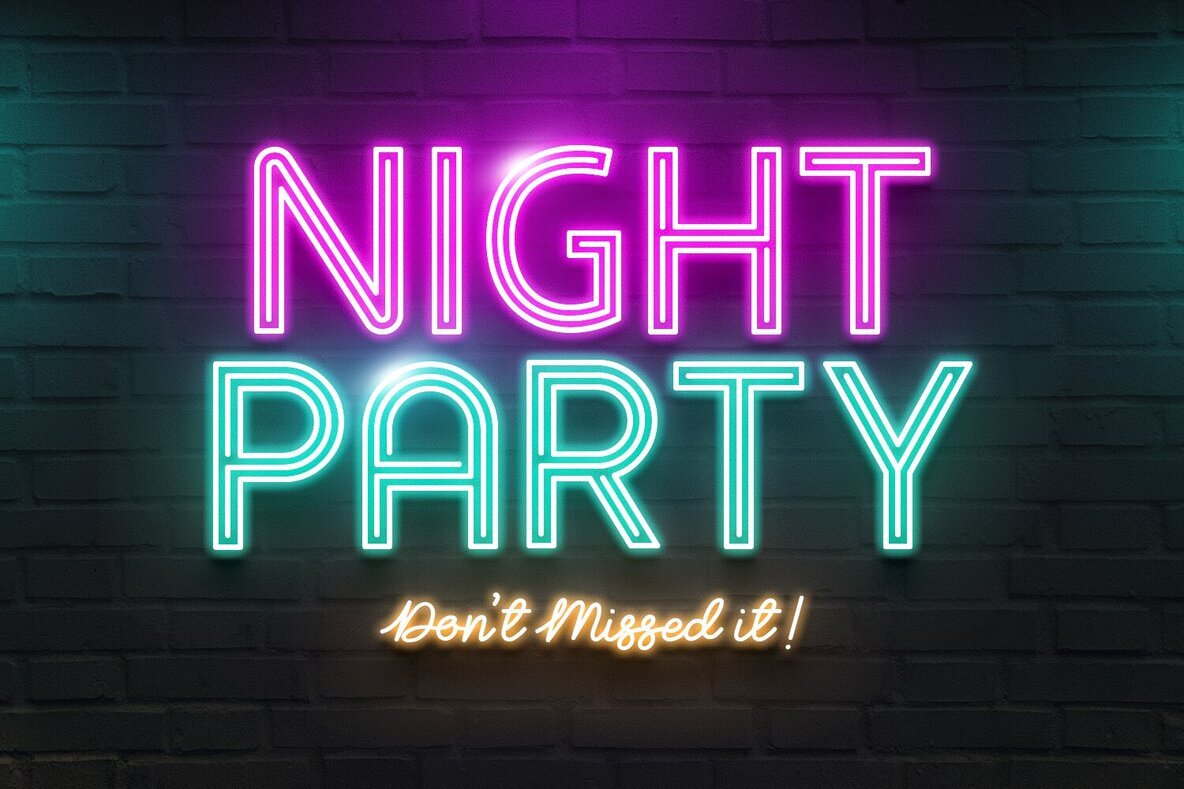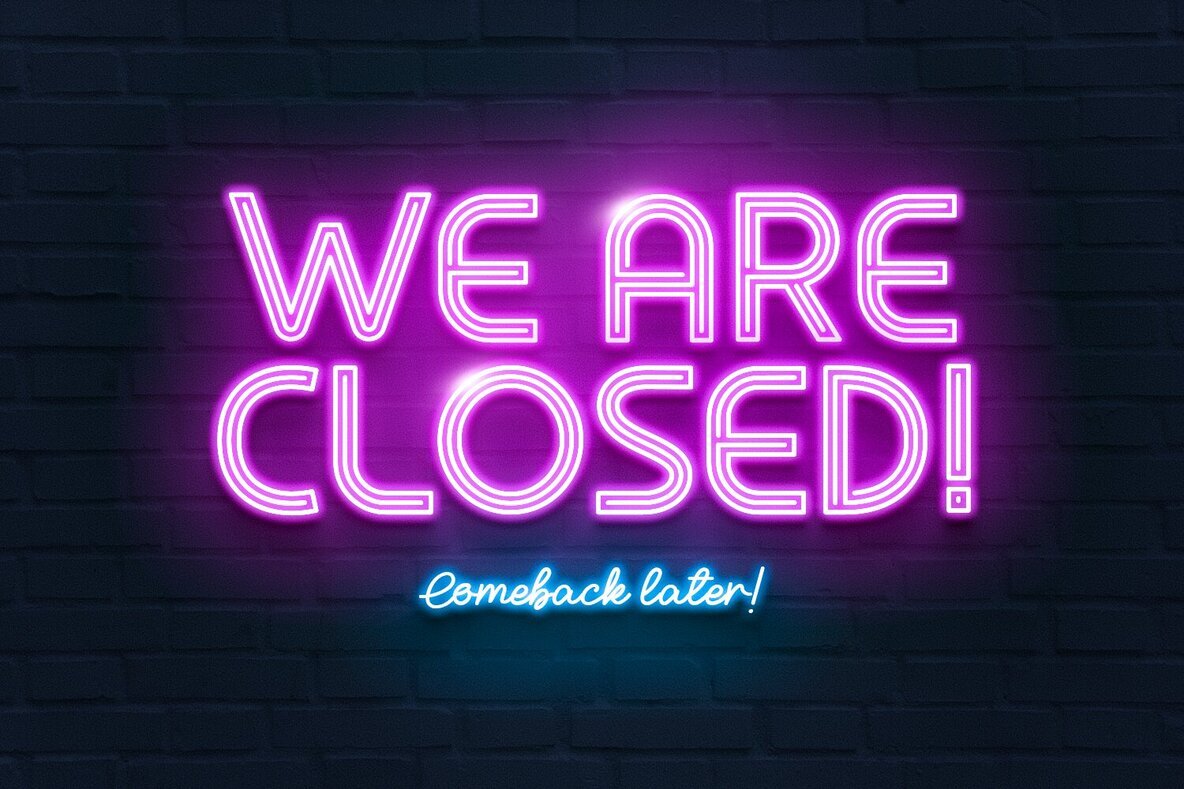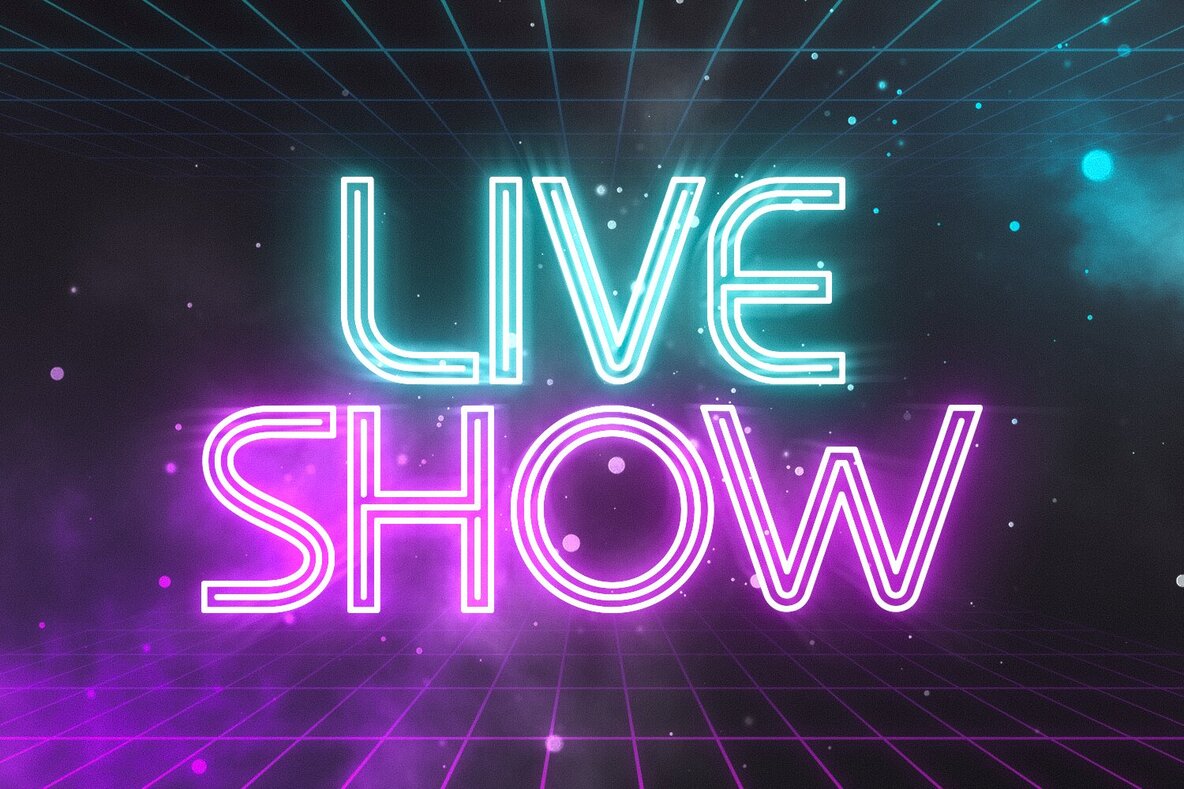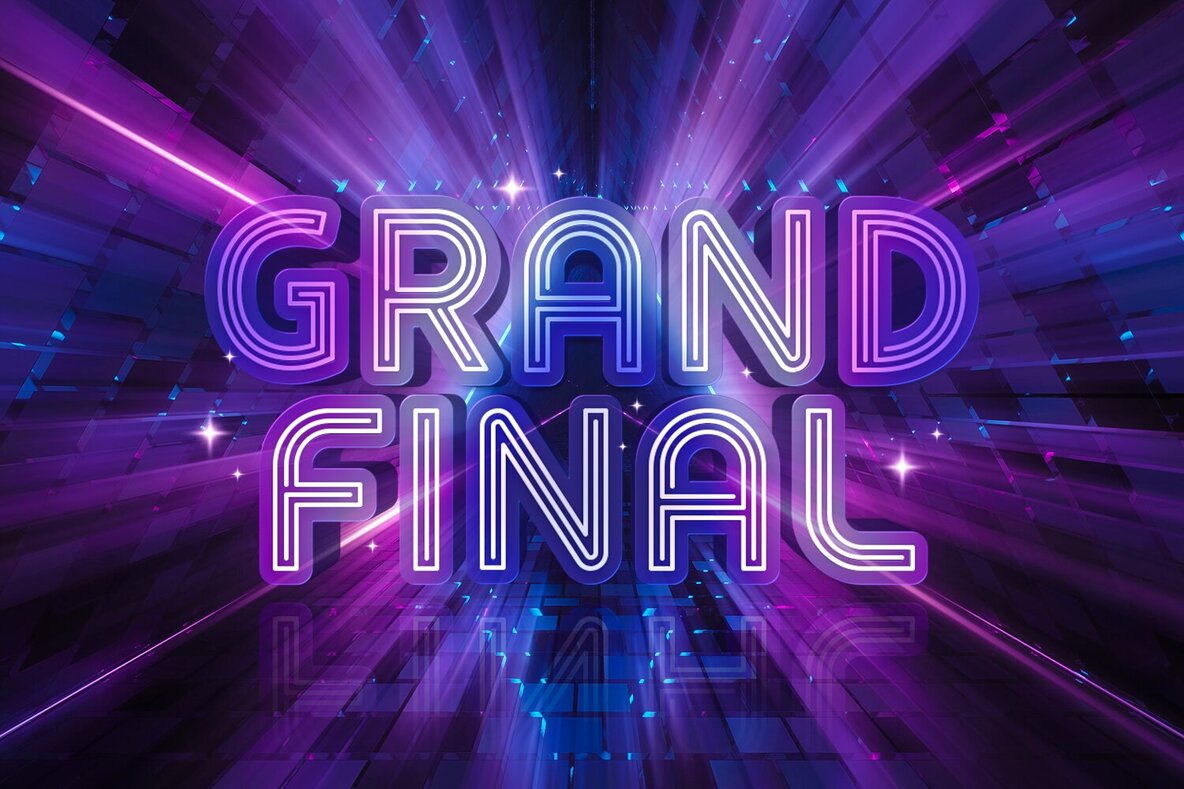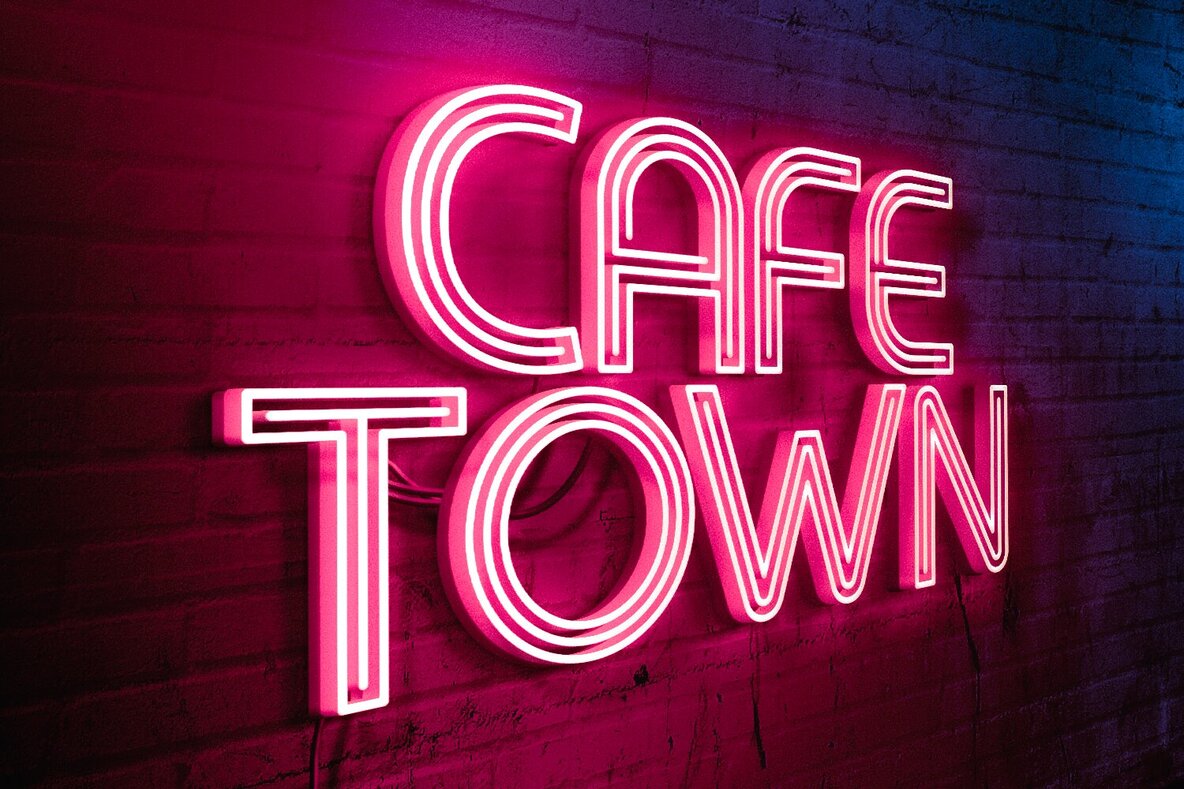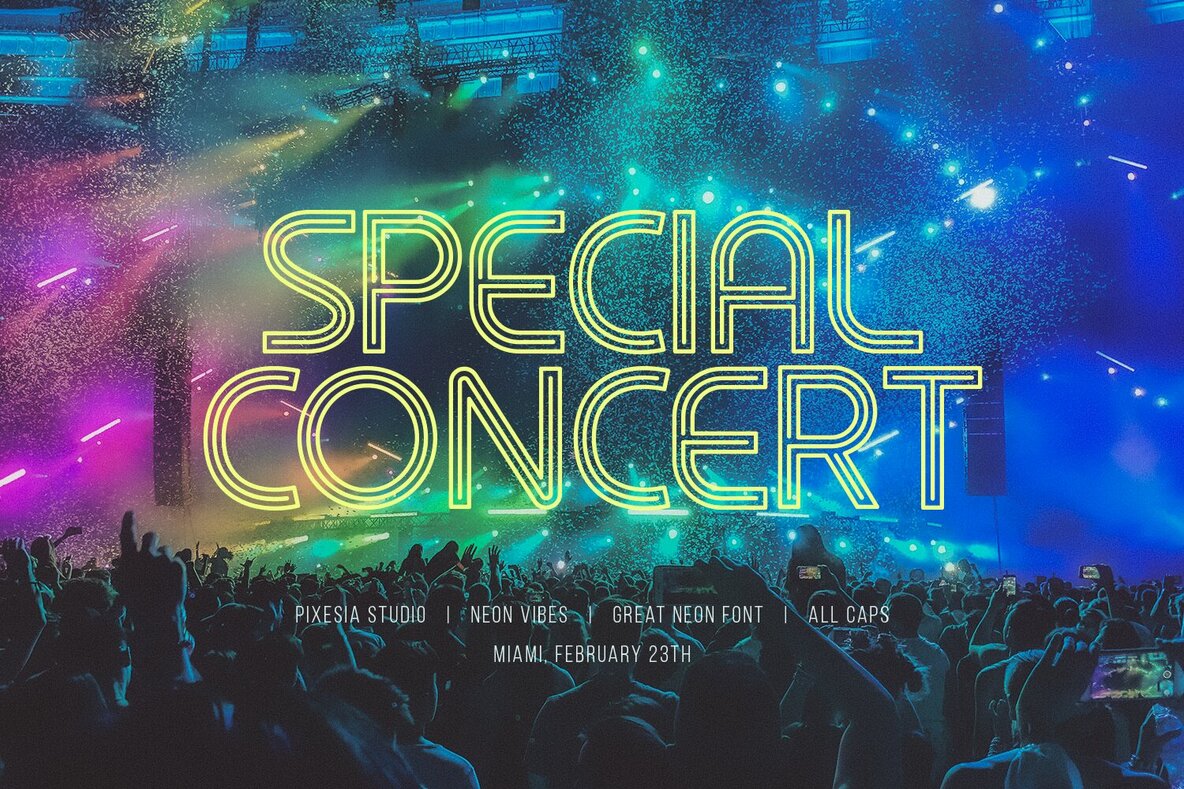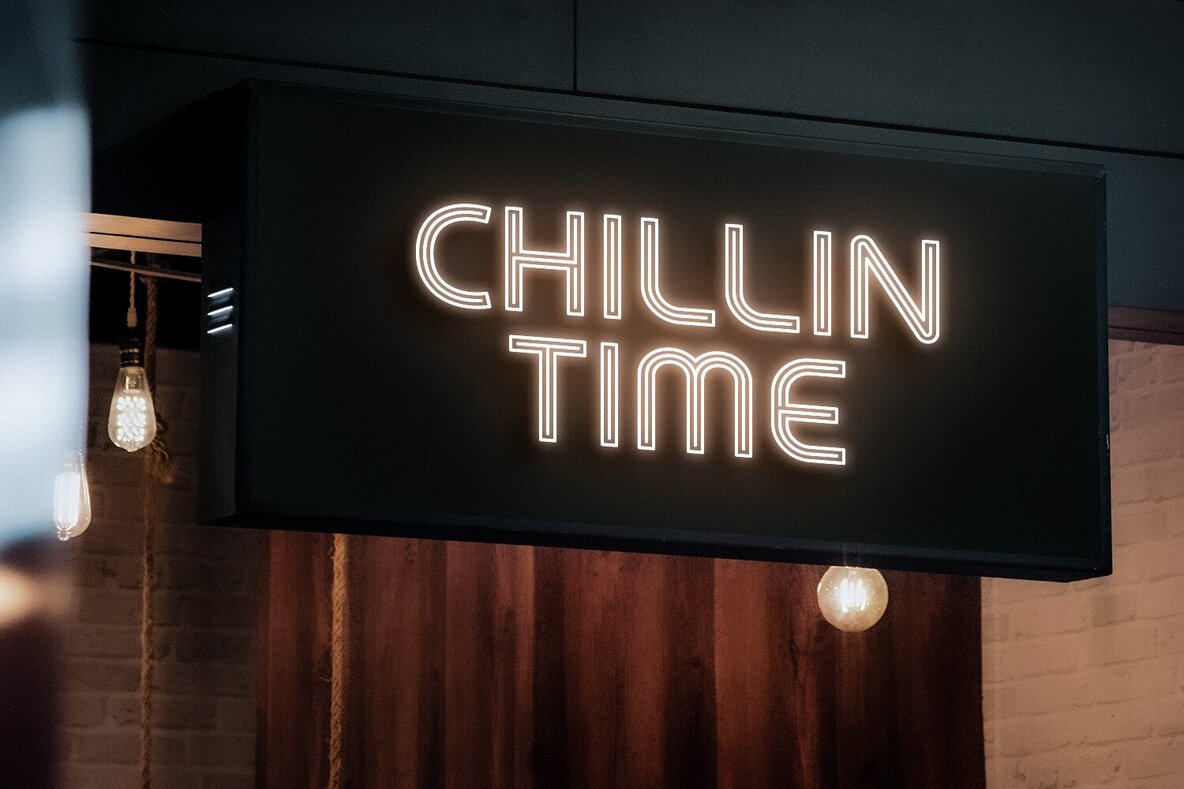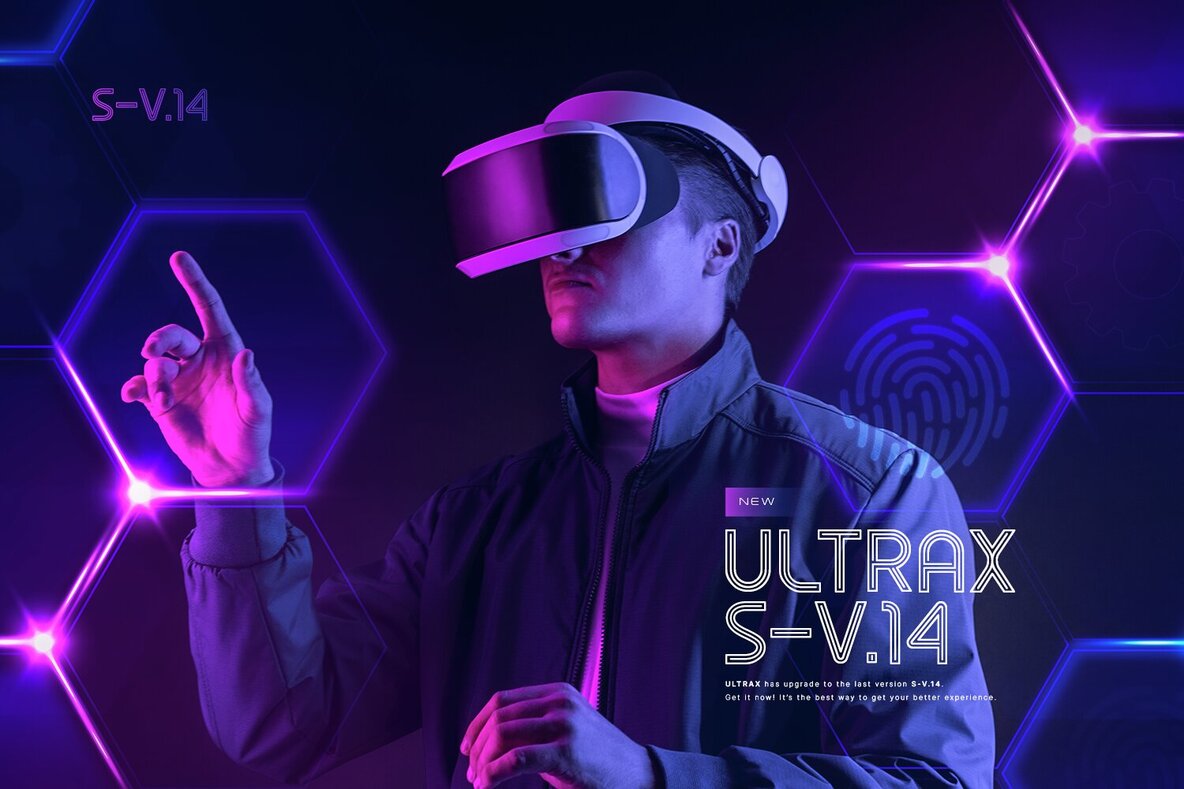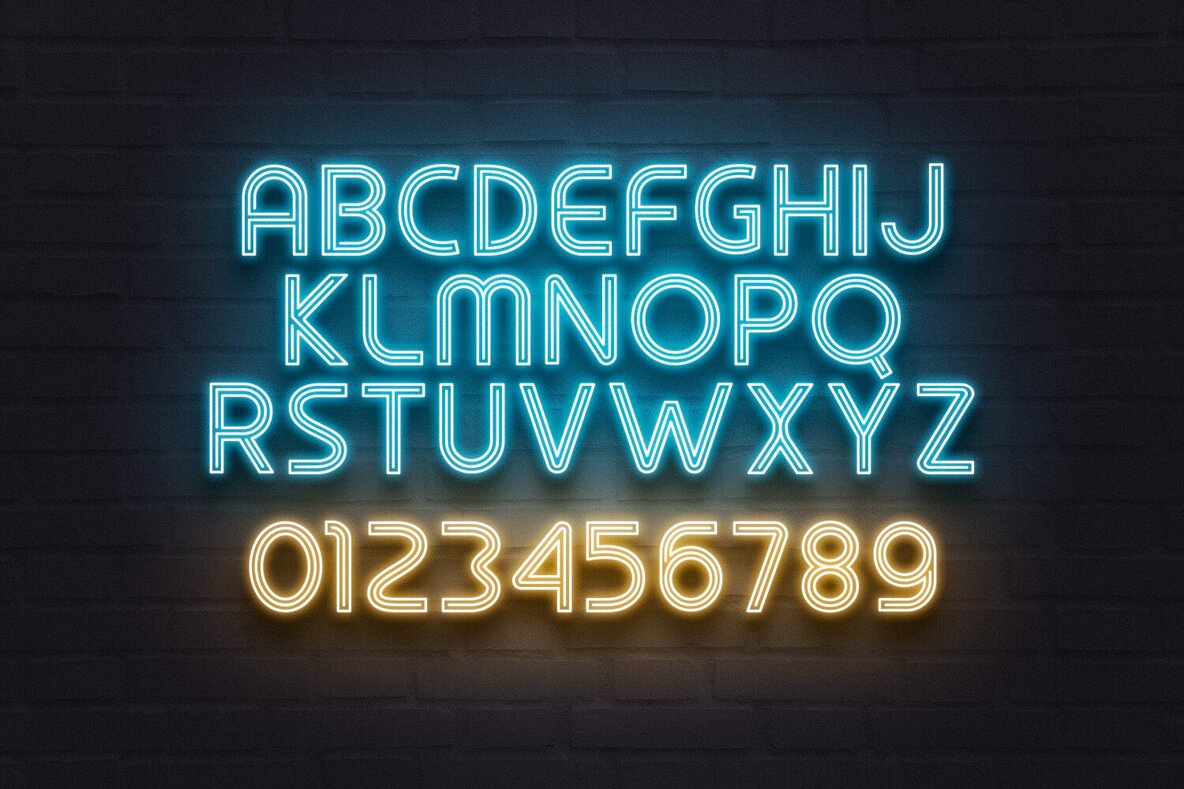
Neon Vibes is a retro neon light font that is perfect for creating a throwback, nostalgic feel in your designs. Its glowing letters are reminiscent of classic neon signage, and they are sure to add a touch of excitement and energy to any project posters, flyers, and invitations. Whether you're designing for a party, a concert, or a retro-themed event, Neon Vibes is sure to add the perfect finishing touch.